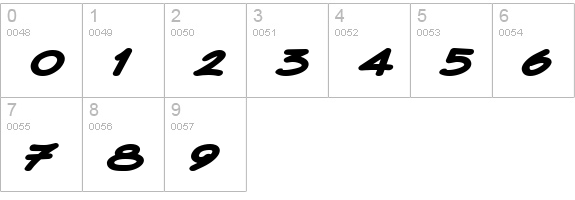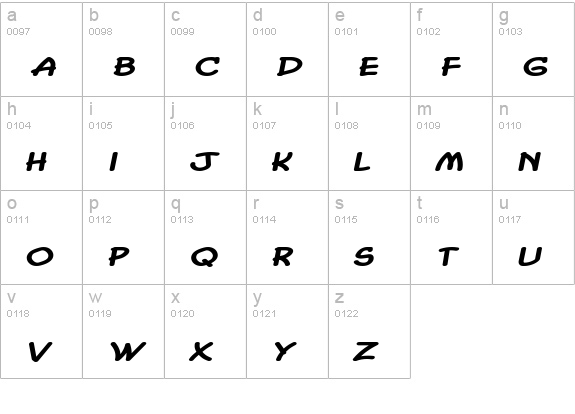
Chasm Extended Heavy Italic Font Details
Chasm Extended Heavy Italic is a heavy, high-impact, extended-width, italic variant in the Chasm typeface family \xE2\x80\x94 well suited to high-impact headlines, posters, and display advertising.
Chasm Extended Heavy Italic font is a bold and dramatic typeface that commands attention with its strong and dynamic presence. The slanted italic design adds a sense of movement and energy to any text, making it perfect for headlines, titles, and other display purposes. The extended width of the characters gives the font a modern and impactful look, making it stand out in any design project. Best of all, Chasm Extended Heavy Italic font is available for free download at FontsMarket.com. This means that you can easily access this striking typeface without any cost, making it a valuable addition to your font library. Whether you're working on a poster, website, logo, or any other creative project, Chasm Extended Heavy Italic font is sure to make a bold statement and leave a lasting impression. Download it today and elevate your designs with this eye-catching and versatile font.